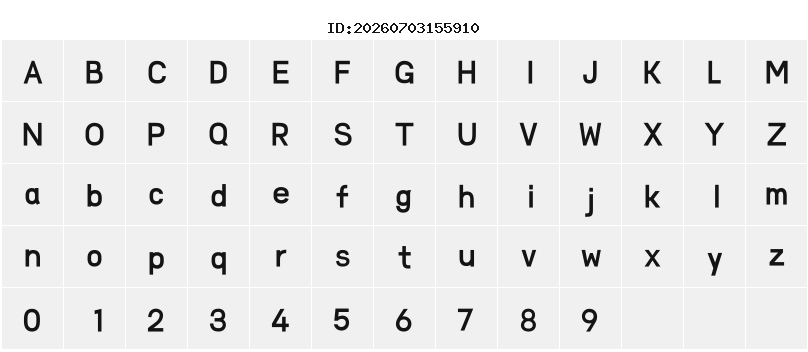
082-上首简黑粗体 Preview
• Font Name: 082-上首简黑粗体
• Font ID: 082-SS Jian Hei Cu Ti:Version 6.00
• Full Font Name: 082-上首简黑粗体
• Version: Version 6.00 January 4, 2025
• PostScript Name: 082-SSJianHeiCuTi
• Character Count: 7577
• Manufacturer: 上首造字
About 082-上首简黑粗体.ttf
082-上首简黑粗体.ttf is a modern, elegant sans-serif font designed for ultimate readability and visual harmony. Perfect for branding, headlines, web design, and print materials.